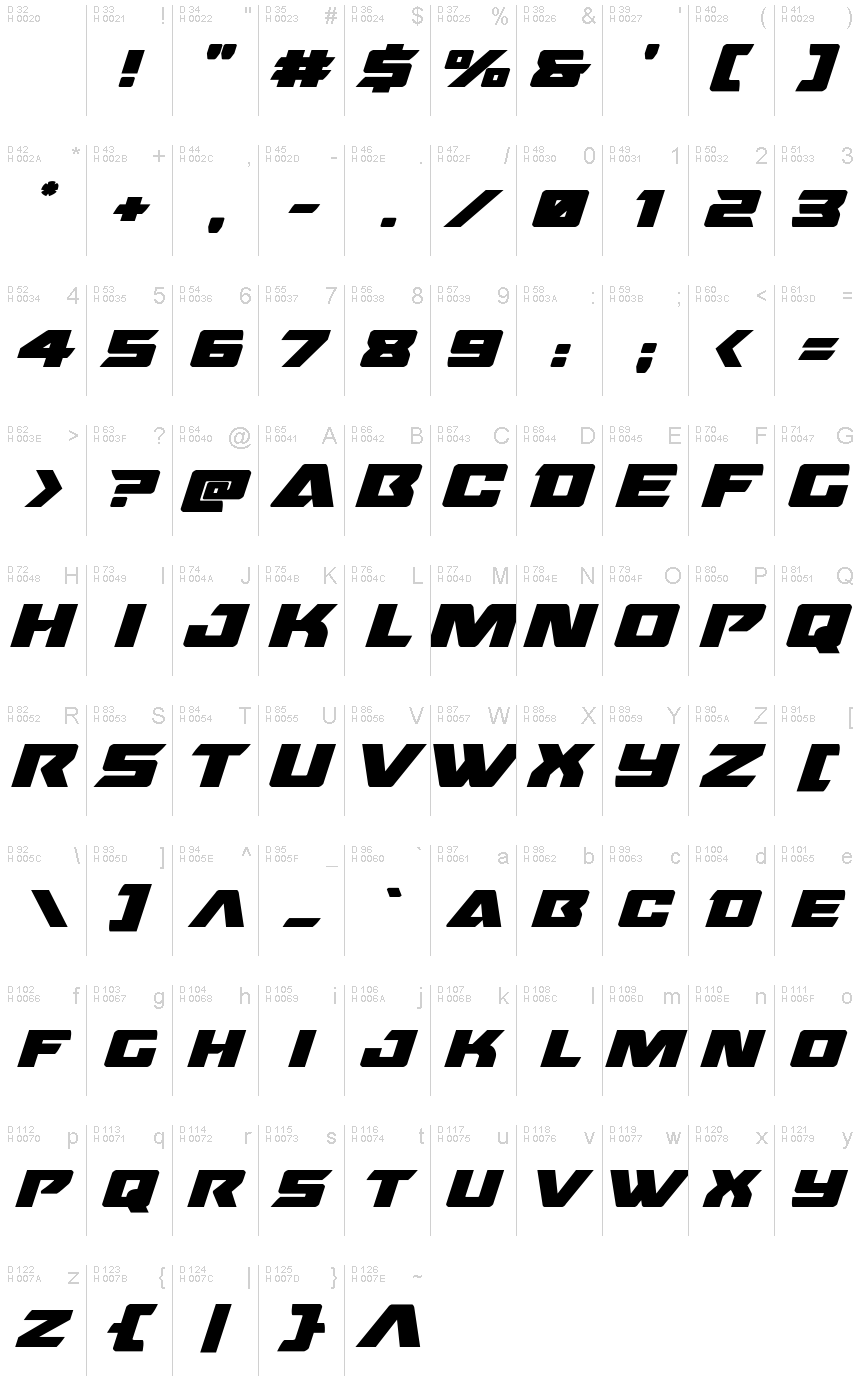
Oceanic Drift Bold Expanded It
Oceanic Drift Bold Expanded Italic, a captivating display font designed by Iconian Fonts, radiates a futuristic allure. This striking typeface boasts a bold, expanded silhouette with a distinct italic twist, evoking a sense of dynamic movement and technological sophistication. The Oceanic Drift family's sleek, streamlined letterforms seamlessly blend modern aesthetics with a touch of coastal inspiration, creating a visually striking and impactful typographic experience.
Oceanic Drift Bold Expanded Italic's versatility makes it a versatile choice for a wide range of design applications, from bold headlines and attention-grabbing logos to immersive digital experiences and cutting-edge branding initiatives. Its captivating personality lends itself well to projects seeking to convey a futuristic, innovative, or tech-driven narrative, making it an ideal selection for tech companies, digital agencies, and visionary product launches.